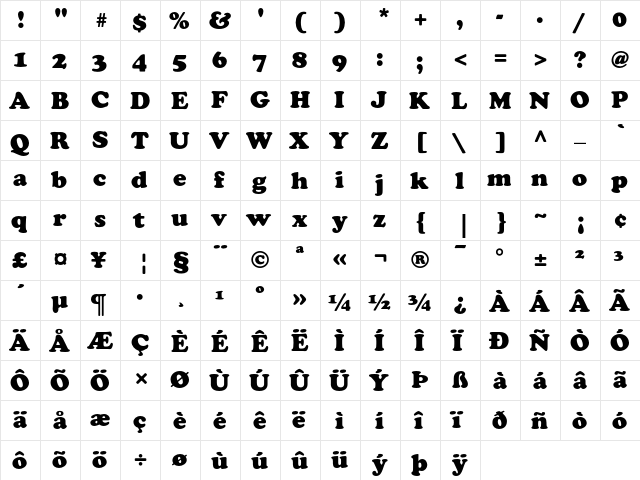
Cooper Black Regular Font Preview
Cooper Black Regular
Design Context for Cooper Black Typeface
Cooper Black takes a measured approach to typography — its balanced proportions and neutral character make it a reliable workhorse for both digital and print work.
Pro Tip: Pair Cooper Black with a font of contrasting weight or personality to build a more expressive typographic hierarchy.